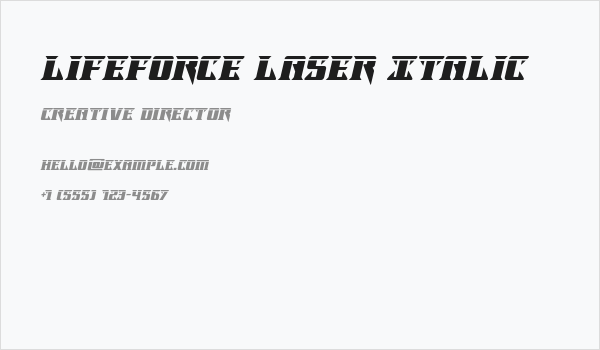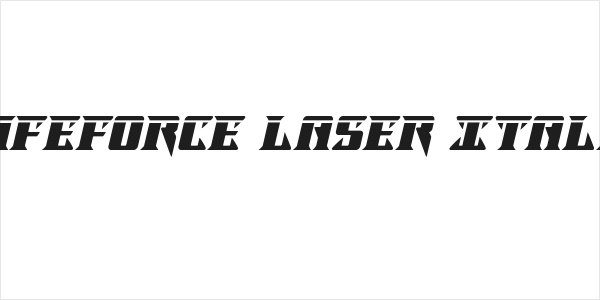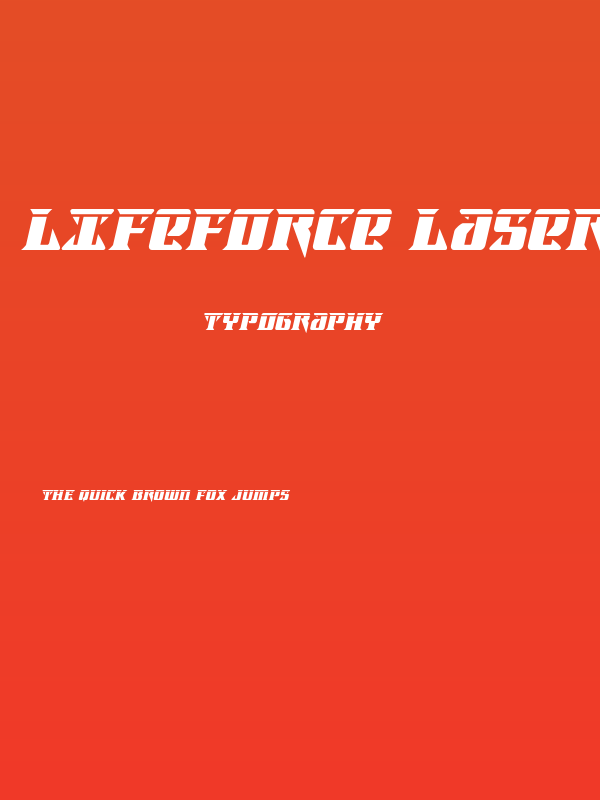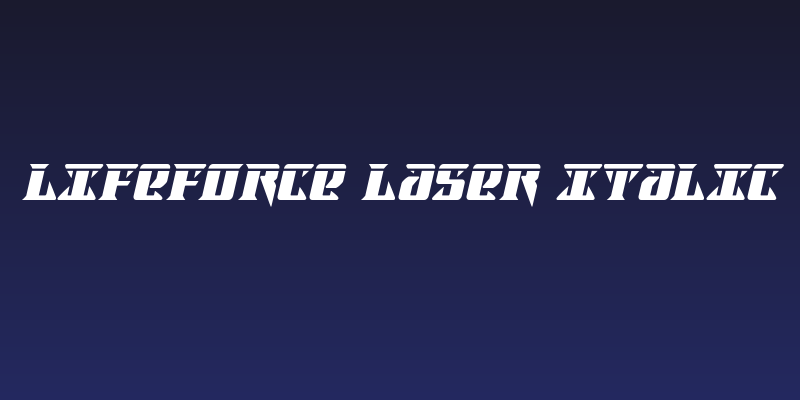
Lifeforce Laser Italic Font
Lifeforce Laser Italic Description
This font features a bold and dynamic design with sharp, angular edges and a futuristic aesthetic. The characters are italicized, giving them a sense of motion and energy. The uppercase and lowercase letters maintain a consistent style, with a strong emphasis on geometric shapes and a slightly condensed form. The numbers and special characters follow the same design principles, ensuring uniformity across all glyphs. This font's unique style makes it stand out, ideal for projects that require a modern and edgy look.
Proposed ProjectsIdeal for sci-fi themed projects, video game titles, movie posters, and branding that requires a modern, edgy look.